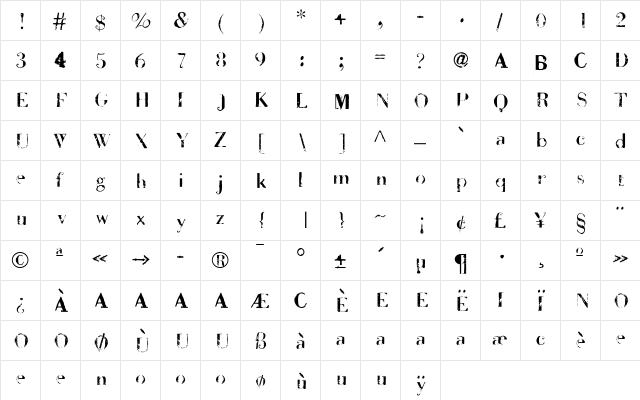
BadDeni Regular
Design Context for BadDeni Typeface
BadDeni is a composed and adaptable typeface that performs quietly and consistently across a wide range of design contexts.